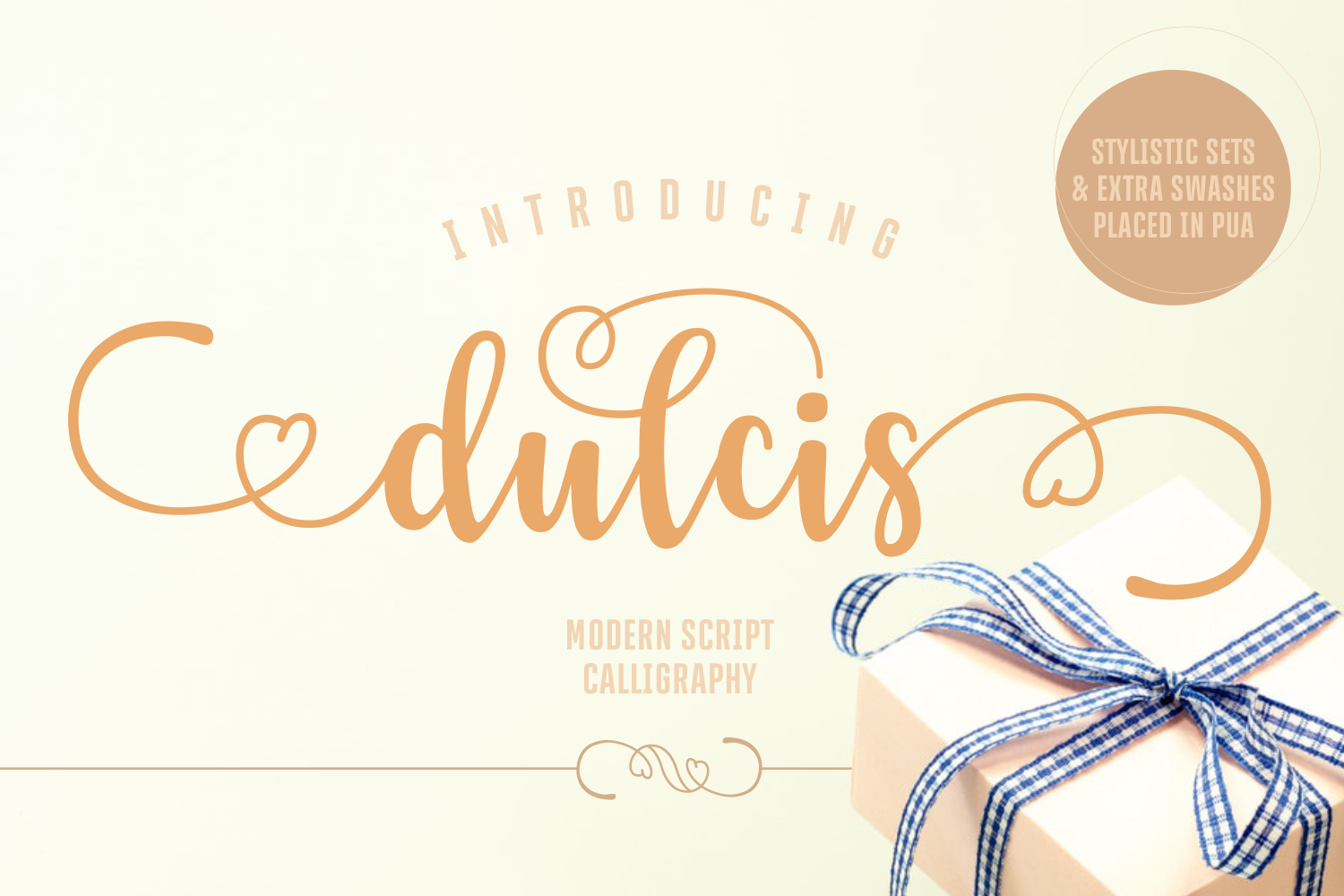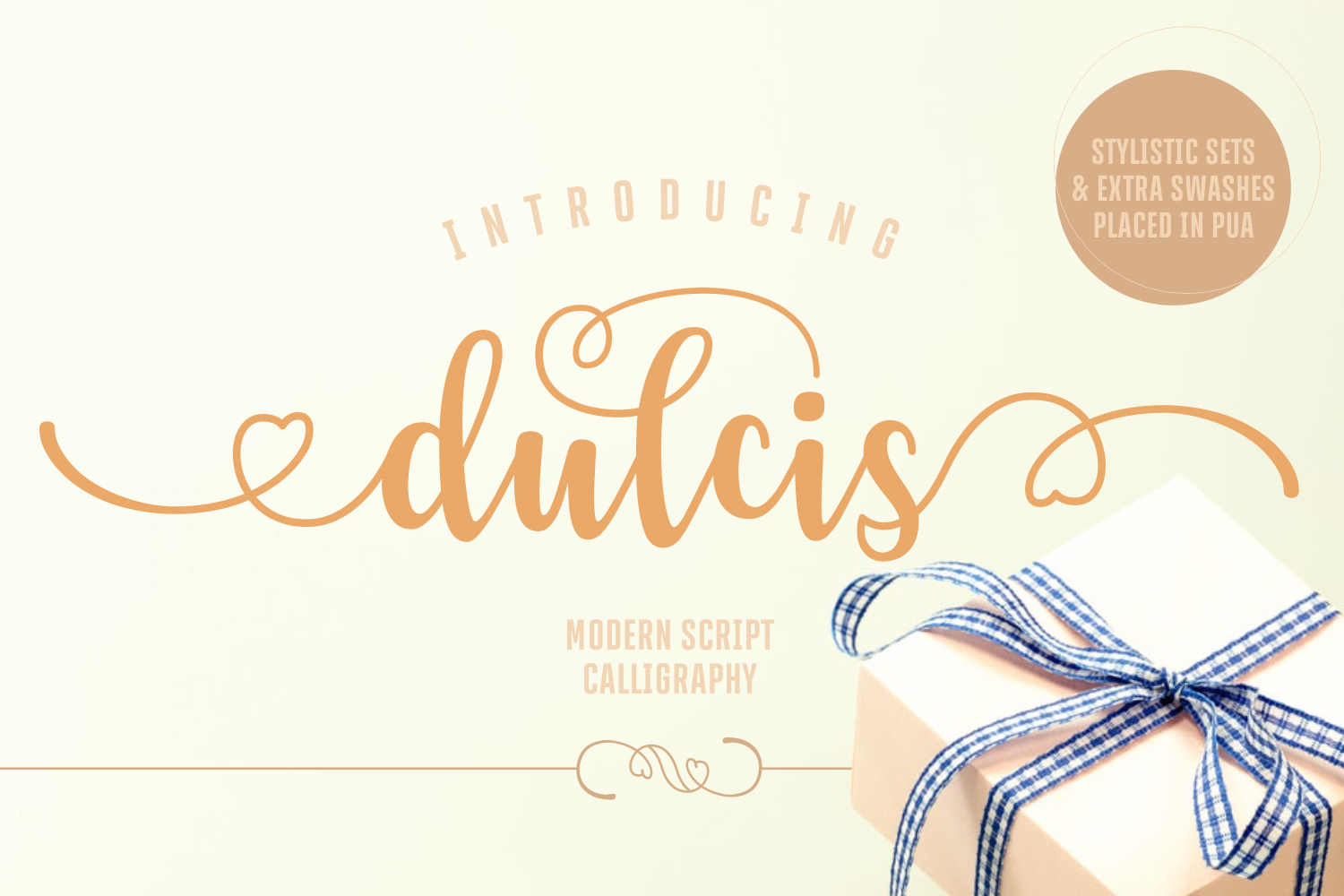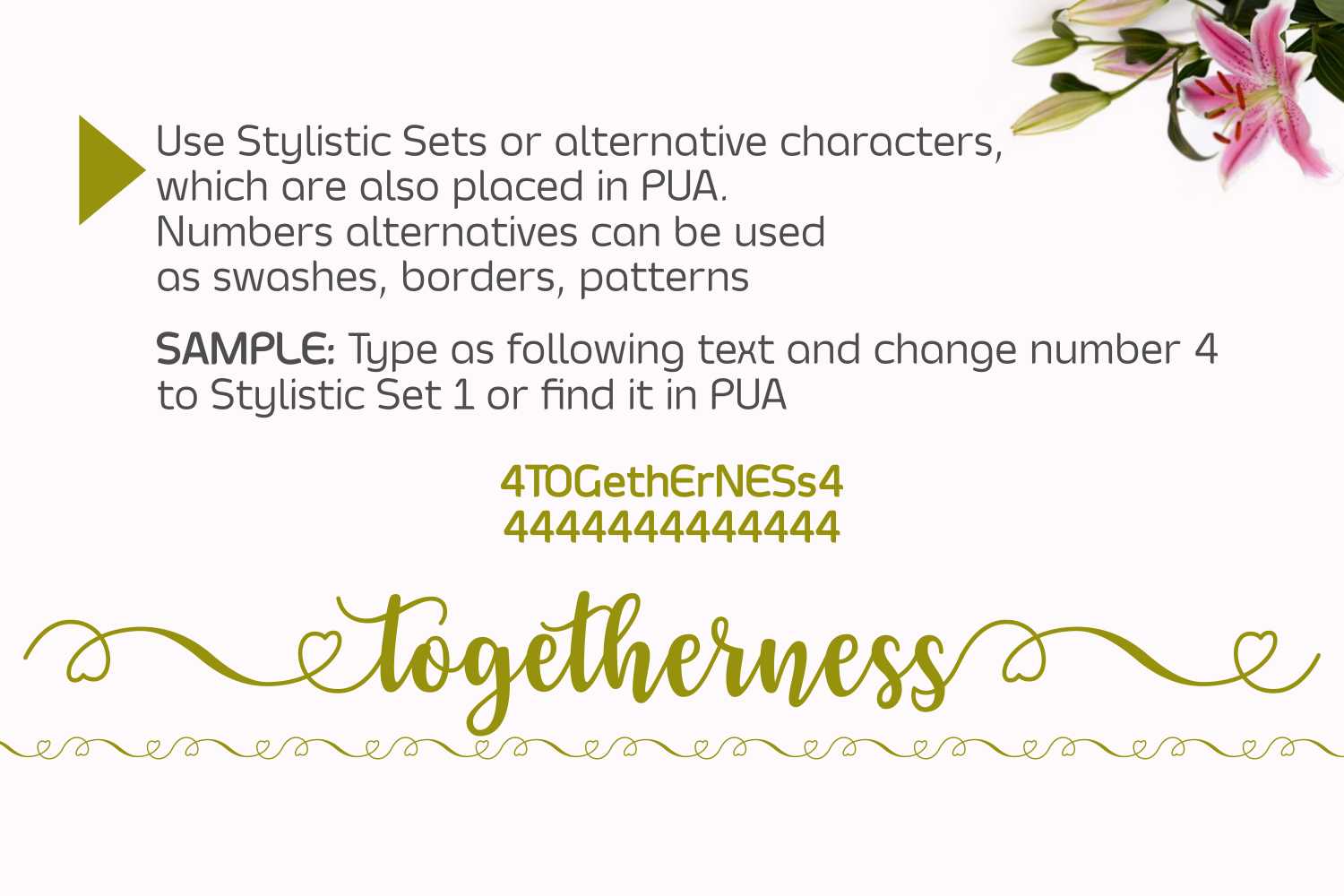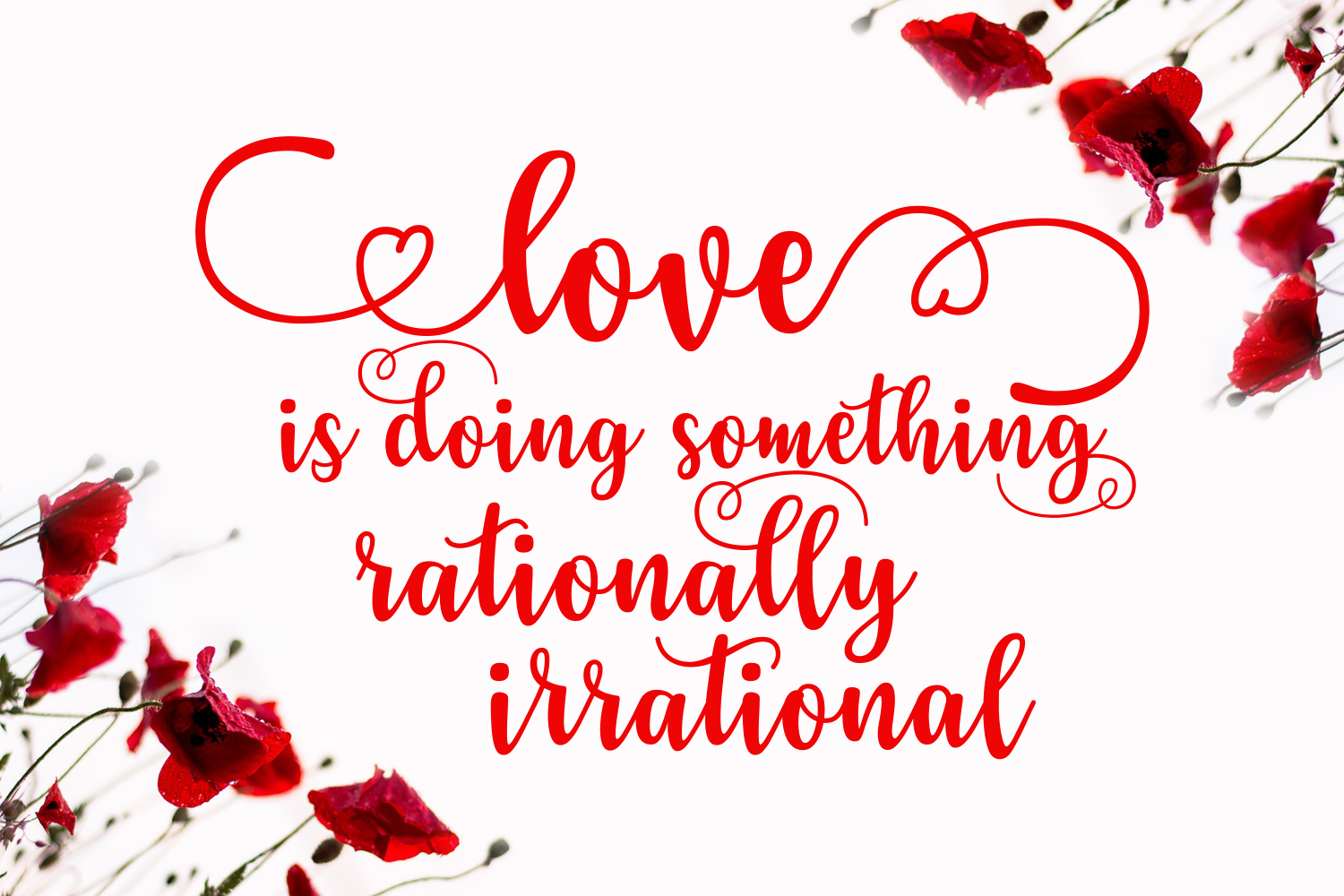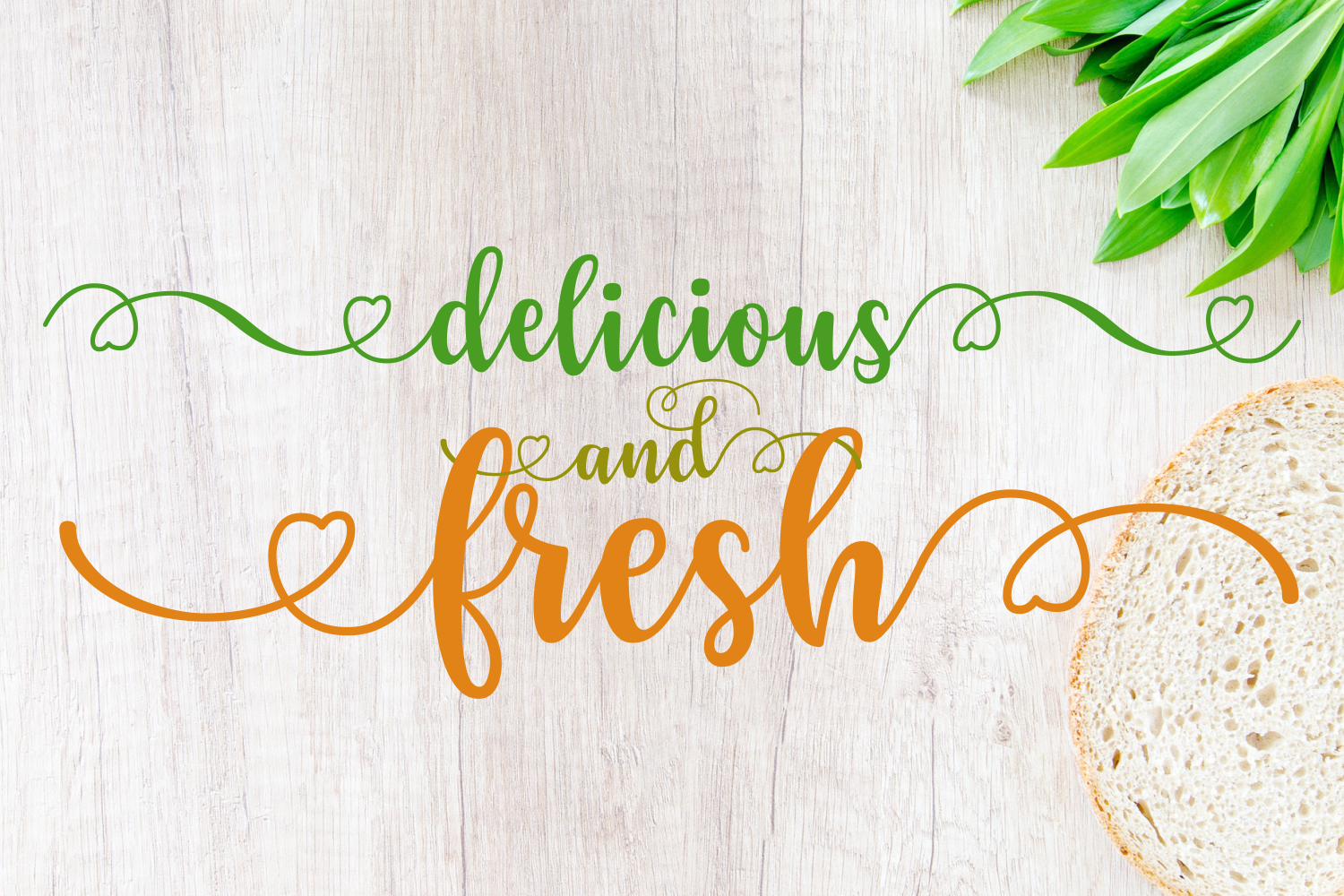
Dulcis Font
Dulcis is a stunning, handwritten calligraphy font.
The Dulcis font is packed with loads of stylistic extras and swashes. Adding decorative swashes is very simple as you can see below – in this example you simply type: [dulcis]
The PUA section of this font is also packed with stunning alternate characters with swashes.